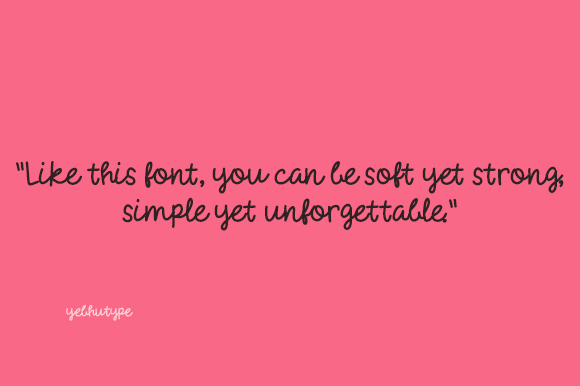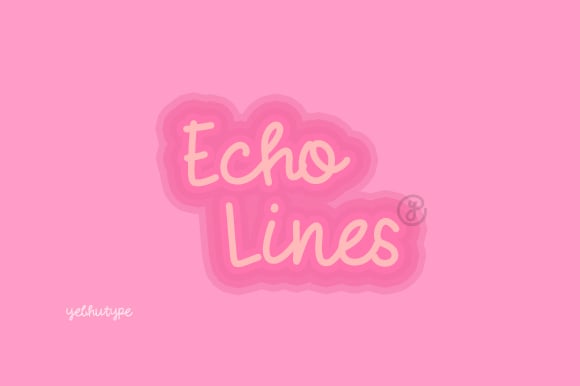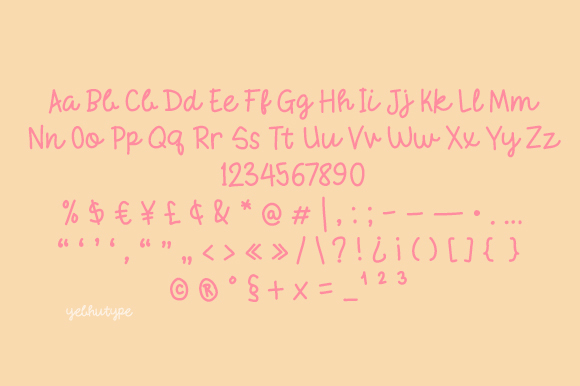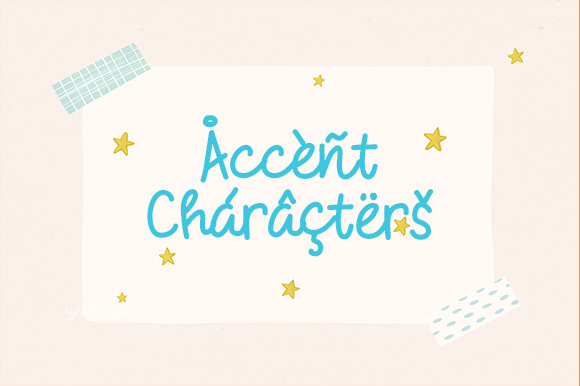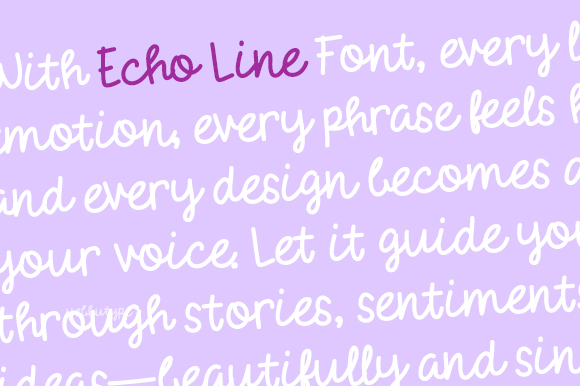
Echo Line Font: Where Whimsy Meets Grace in Every Stroke
Introducing Echo Line Font, a charming handwritten typeface that captures the beauty of natural writing with a touch of elegance and spontaneity. Carefully crafted to convey warmth, ease, and a hint of sophistication, Echo Line is more than just a font—it’s a tribute to the quiet poetry found in everyday handwriting. With its smooth flow, subtle quirks, and dual lowercase styles, Echo Line invites you to create with authenticity and flair.
The Spirit of Echo Line Font
Echo Line is inspired by the effortless flow of ink on paper—the kind found in personal letters, cherished journals, and fleeting doodles on a lazy afternoon. It carries with it the feeling of sincerity and personal connection, making it ideal for projects that aim to feel approachable, heartfelt, and beautifully human. Whether you’re designing for branding, storytelling, or self-expression, Echo Line wraps your words in personality and poise.
✦ Key Features
Fluid & Friendly Design
With its easygoing curves and natural rhythm, Echo Line feels handwritten without being messy. Its clean lines and organic forms strike the perfect balance between casual and refined.
Dual Lowercase Styles
Enjoy versatility with two distinct lowercase sets—one print-inspired and one script-style. Switch seamlessly between them to match your creative tone or add variation for visual interest.
Naturally Expressive
Each letter is filled with personality—from the swooping tails to the subtle slants—giving your text a dynamic, handwritten feel that’s never stiff or artificial.
Crafted with Care
Every character is lovingly designed with attention to spacing and flow. Slight imperfections add charm, ensuring Echo Line remains authentic and engaging at every size.
Soft Sophistication
Echo Line has a modern sensibility, yet feels timeless. It’s confident without being loud—perfect for when you want to speak with a gentle, creative voice.
✦ Mood & Personality
Echo Line embodies the feeling of writing a letter to a dear friend, sketching thoughts in a notebook, or leaving a heartfelt note on a café chalkboard. It’s warm, welcoming, and quietly expressive. This is a font that whispers rather than shouts—but it always leaves an impression.
It’s the handwriting you wish you had—neat, flowing, and full of personality.
✦ Ideal Use Cases
✦ Personal Branding & Signature Logos
Build your brand with a font that feels personal and genuine. Echo Line adds an approachable touch to name-based logos, tagline signatures, and creative portfolios.
✦ Editorial & Storytelling Projects
Bring stories to life with Echo Line’s inviting style. Ideal for book covers, blog headers, zines, or captioned illustrations.
✦ Wedding & Lifestyle Stationery
From save-the-dates to thank-you cards, Echo Line’s romantic flow and soft charm make every message feel intimate and memorable.
✦ Social Media & Digital Content
Echo Line stands out in scrollable spaces. Use it for quote posts, highlight covers, YouTube thumbnails, or TikTok titles to make your message feel relatable and polished.
✦ Journals, Crafts & DIY Projects
Elevate your bullet journal, scrapbook, or handmade product labels. Echo Line brings a thoughtful, human touch to every page and package.
Why Choose Echo Line Font?
In a world of geometric perfection and sterile lines, Echo Line dares to be personal. It’s a font that celebrates the individuality of handwriting—imperfect, expressive, and completely yours. It helps you communicate with heart, making every project feel more thoughtful, warm, and alive.
Whether you're writing a love note or launching a brand, Echo Line is the subtle voice that makes your message resonate.
Let Your Words Flow with Character and Clarity
With Echo Line Font, every letter carries emotion, every phrase feels handwritten, and every design becomes a reflection of your voice. Let it guide your audience through stories, sentiments, and ideas—beautifully and sincerely.
P.S.: Some fonts speak loudly—Echo Line whispers gracefully and leaves a lasting echo.